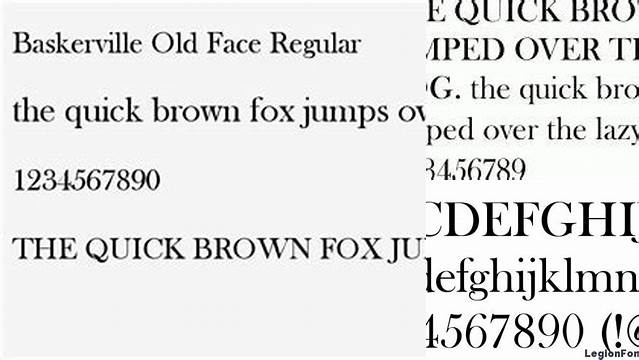
Baskerville Old Face Font Family: Free Download and Everything You Need to Know
Hey guys, are you on the hunt for a classic and elegant typeface? Look no further, because we're diving headfirst into the world of the Baskerville Old Face font family! This isn't just any font; it's a timeless beauty with a rich history and a knack for making your text look absolutely stunning. In this article, we'll cover everything from where to snag a free download of Baskerville Old Face to its origins, uses, and some cool alternatives. Get ready to jazz up your designs with this typography gem!
What is Baskerville Old Face Font?
Alright, let's get down to the nitty-gritty. Baskerville Old Face is a serif typeface, meaning it has those little strokes (serifs) at the ends of its letters. Designed by John Baskerville in the mid-18th century, it's a transitional serif, sitting somewhere between the old-style fonts and the more modern ones. What makes it so special? Well, its high contrast between thick and thin strokes gives it a sophisticated and refined look. It's known for its elegance and readability, making it a fantastic choice for a wide range of projects. Baskerville's attention to detail and his pursuit of perfection led him to create a typeface that was both beautiful and highly functional. He experimented with paper, ink, and printing techniques to enhance the clarity and sharpness of his letters. This dedication to quality is a hallmark of the Baskerville Old Face font.
The Baskerville Old Face font family offers a clean, crisp appearance. Its refined aesthetics are a direct result of Baskerville's meticulous approach to design. This carefulness ensures that each character is rendered with precision, enhancing the overall reading experience. The font's characteristics include sharp serifs, a vertical stress, and a high contrast between thick and thin strokes. This combination of features gives it a distinct and memorable appearance. Unlike some older typefaces, Baskerville Old Face is remarkably legible, even at smaller sizes. Its clarity makes it a favorite for lengthy texts, providing a comfortable and engaging reading experience. The font's elegance also extends to its spacing and proportions, enhancing its overall appeal. Each aspect of the design works harmoniously to create a typeface that is both functional and visually pleasing. Baskerville Old Face's enduring popularity is a testament to its timeless design, which continues to be appreciated across diverse applications.
History and Origins of Baskerville Old Face
Let's take a quick trip back in time. John Baskerville, the genius behind this font, was an English printer and typographer. He was all about perfection, experimenting with ink, paper, and printing techniques to create a typeface that was a cut above the rest. He wanted to create a font that was both beautiful and readable, and he definitely succeeded. Baskerville's quest for perfection led him to develop a printing process that was considered revolutionary at the time. His work reflected the Age of Enlightenment's focus on clarity, precision, and rationalism. He was not only a printer but also a craftsman. His commitment to excellence and the meticulous approach to his work made him a leading figure in the history of typography. His typeface soon became popular and quickly found its way into books, newspapers, and other forms of print media.
Baskerville's dedication to clarity and elegance revolutionized typography. His impact is still felt today as his typeface continues to inspire and influence designers. His contributions extended beyond the design itself; he also improved the entire printing process, setting new standards for quality and precision. His work, which dates back to the 18th century, is now a cornerstone of modern typography. His fonts are widely used in various fields, including publishing, graphic design, and web design.
The Baskerville Old Face typeface emerged in the mid-18th century. His approach to typography revolutionized the printing industry, introducing a style that was a departure from the more traditional typefaces of the time. Baskerville's meticulous attention to detail ensured that each character was a work of art, making his font a symbol of refined elegance. Baskerville’s influence on typography and design continues to inspire creatives across the globe. His pioneering work in typography has left a lasting impact on the field of design. His meticulous approach to printing and the creation of the Baskerville Old Face font are a testament to his dedication to his craft.
Uses of Baskerville Old Face
So, what can you actually do with this font? Baskerville Old Face is incredibly versatile! Here are some of its best uses:
Conclusion: Embrace the Elegance of Baskerville Old Face